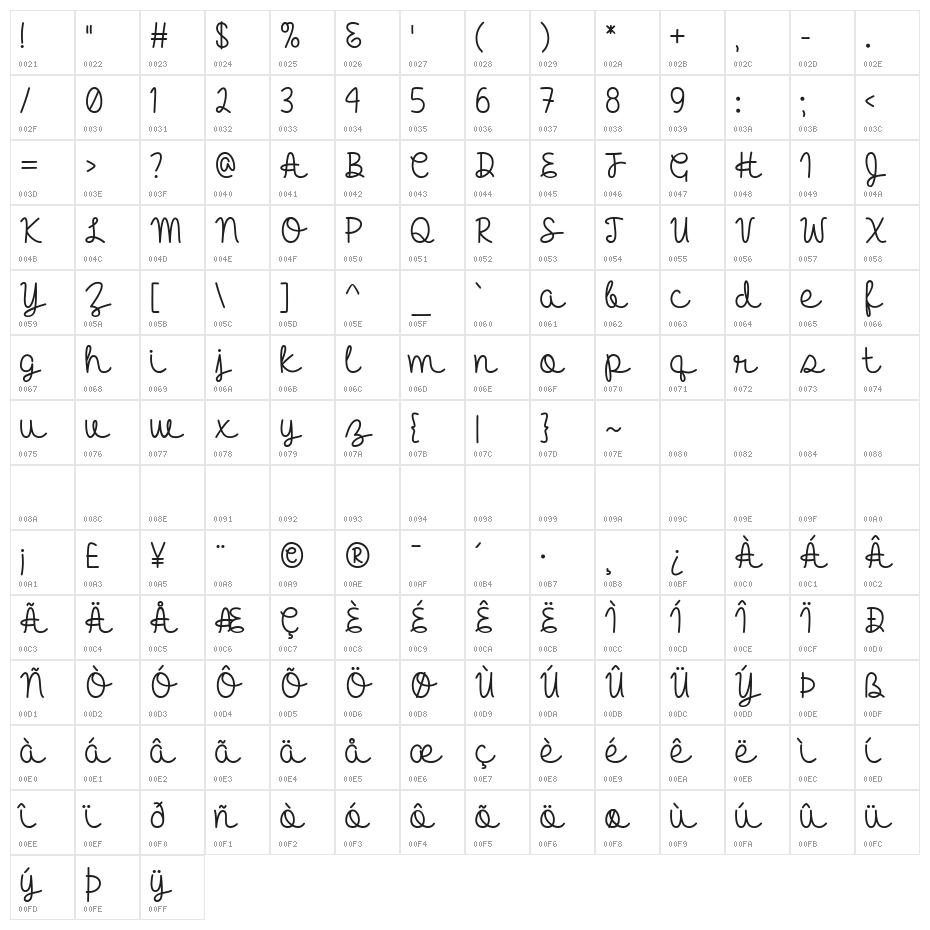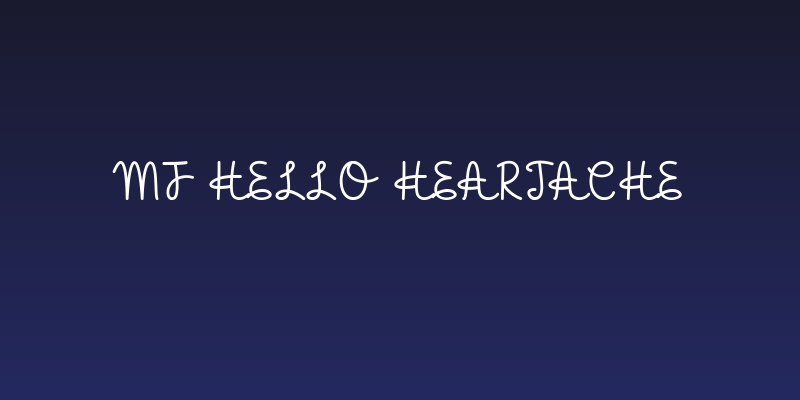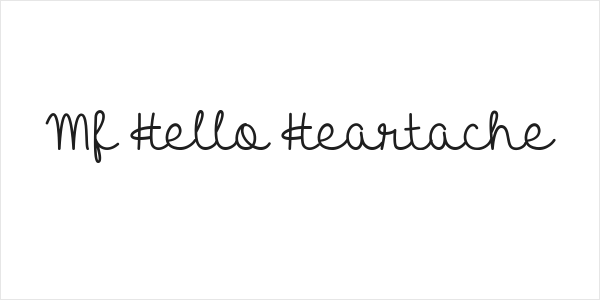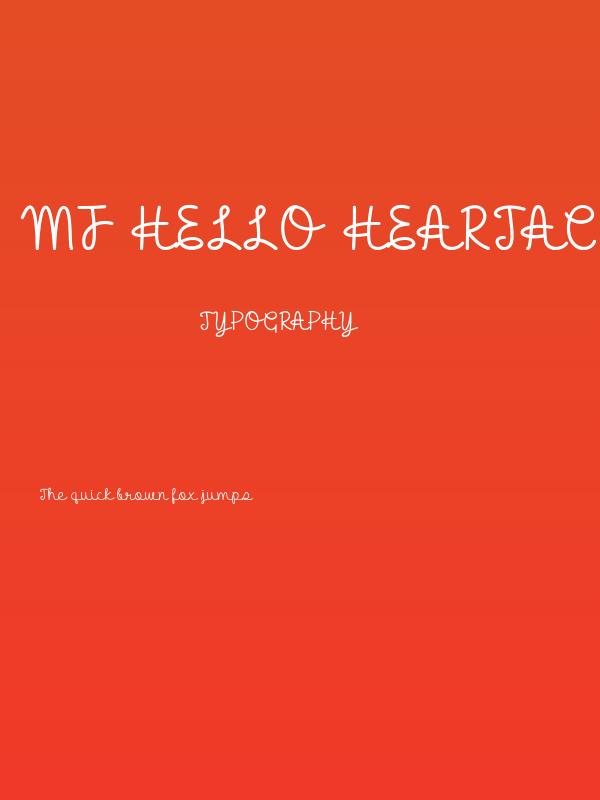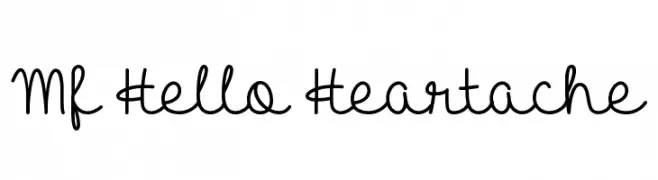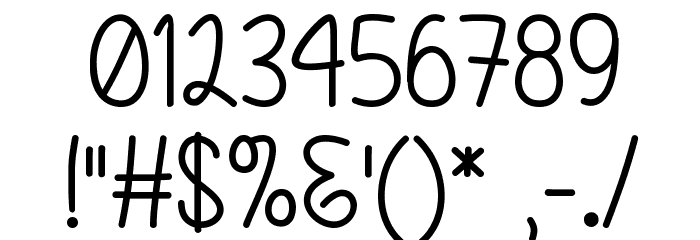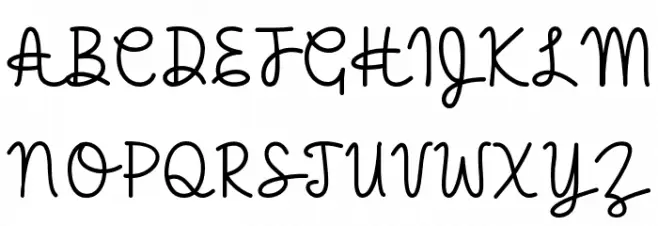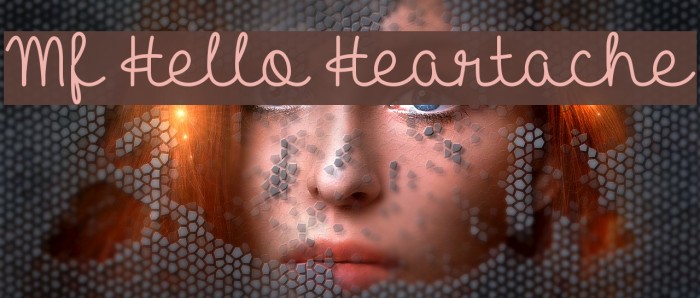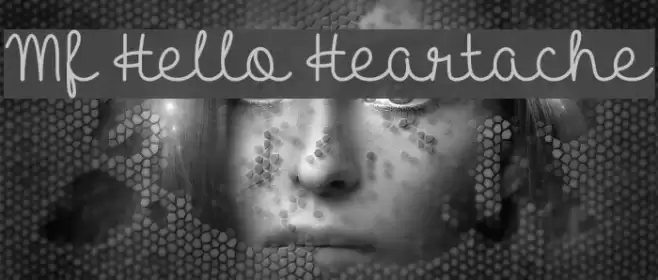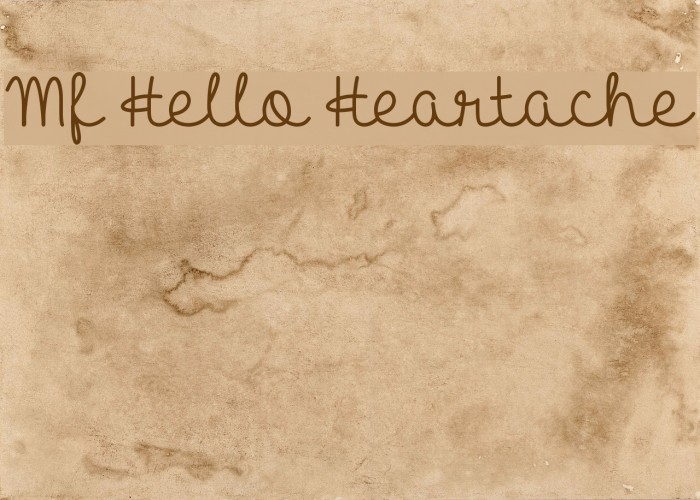
Mf Hello Heartache Font
Mf Hello Heartache Description
This font features a playful and whimsical handwritten style, characterized by its smooth, flowing lines and rounded edges. The uppercase letters maintain a consistent height, while the lowercase letters exhibit a charming irregularity, adding to the font's casual and friendly appearance. The numerals are clear and legible, matching the overall style with their rounded forms. Special characters are well-integrated, maintaining the font's cohesive look. The font's design is approachable and versatile, making it suitable for a variety of creative projects.
| Overall Style | Casual |
| Use Case | Headlines, Logos, Invitations |
| Proposed Projects | Ideal for greeting cards, invitations, personal branding, and playful logos. |